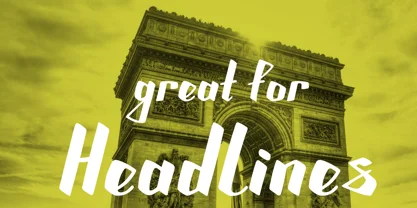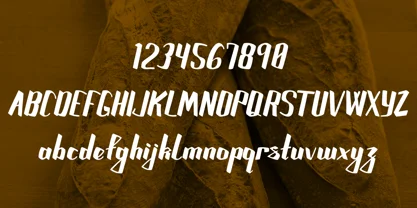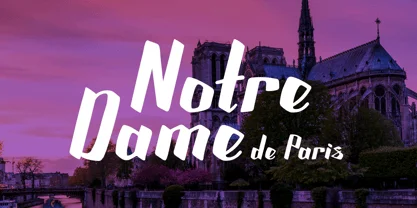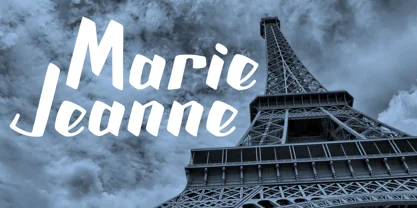
Marie Jeanne Font
A good typeface communicates tone before a single word is read. Marie Jeanne achieves this through controlled contrast that rewards close inspection. The typeface brings an elegant, calligraphic sensibility to a broad range of creative disciplines, with optical balance across all weights that holds up whether the work is print-first or screen-first.
In practice, Marie Jeanne proves particularly effective for bridal materials, boutique logos, greeting cards, luxury stationery, brand identity systems. Designers reaching for it find that the type decisions feel resolved rather than laboured — a useful quality when client timelines are tight.
Ascenders and descenders are drawn with generous extents that give the script its characteristic rhythm. Ligature pairs have been individually tested to prevent collisions, and the baseline is slightly bounced to suggest a natural, unhurried hand.
The range of applications extends to web design, packaging design, event signage, fashion editorials. That breadth is deliberate: the proportions and spacing were stress-tested across a wide range of mock briefs before the typeface was finalised.
Marie Jeanne sits comfortably alongside both classic and contemporary typefaces in multi-font hierarchies. It takes direction rather than competing for attention — a quality that experienced designers know is harder to find than it appears.
In-house creative teams at consumer brands find Marie Jeanne a reliable choice for projects that demand both personality and restraint. The design avoids the self-conscious quirkiness that dates quickly, settling instead for considered distinctiveness that holds up over time.